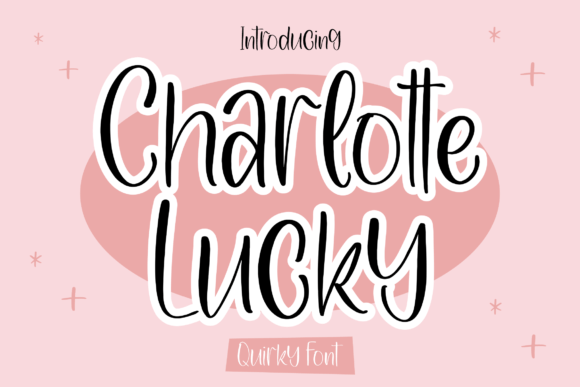
Introducing Charlotte Lucky Font: The Perfect Handwritten Script for Your Projects
Are you looking for a beautiful and elegant handwritten font to elevate your design projects? Look no further than Charlotte Lucky Font. This stunning script font is perfect for a wide range of applications, from logos and branding to homeware designs, product packaging, and more. In this article, we’ll take a closer look at Charlotte Lucky Font and explore its features, benefits, and uses.
What is Charlotte Lucky Font?
Charlotte Lucky Font is a beautiful handwritten script font that is designed to add a touch of elegance and sophistication to your design projects. Its flowing lines, delicate curves, and whimsical flair make it perfect for creating beautiful and eye-catching designs. Whether you’re working on a logo, branding project, or marketing materials, Charlotte Lucky Font is sure to impress.
Key Features of Charlotte Lucky Font
- Handwritten script font: Charlotte Lucky Font is a genuine handwritten script font that adds a personal touch to your designs.
- Elegant and sophisticated: The font’s flowing lines and delicate curves give it an air of elegance and sophistication.
- Whimsical flair: Charlotte Lucky Font has a playful, whimsical flair that makes it perfect for designs that require a touch of personality.
- Versatile: This font is suitable for a wide range of applications, from logos and branding to homeware designs, product packaging, and more.
Uses of Charlotte Lucky Font
Charlotte Lucky Font is a versatile font that can be used for a wide range of design projects. Here are some of the many uses of this beautiful font:
- Logos and branding: Create a stunning logo or branding project with Charlotte Lucky Font that reflects your brand’s personality and style.
- Homeware designs: Add a touch of elegance to your homeware designs, such as cushions, tote bags, and wall art.
- Product packaging: Make your product packaging stand out with Charlotte Lucky Font, perfect for labels, tags, and packaging materials.
- Mugs and ceramics: Create beautiful and unique designs for mugs, plates, and other ceramics.
- Quotes and posters: Use Charlotte Lucky Font to create inspiring quotes, posters, and prints that showcase your favorite sayings.
- Shopping bags and T-shirts: Design eye-catching shopping bags and T-shirts with Charlotte Lucky Font that will make your brand stand out.
- Book covers and name cards: Create stunning book covers, name cards, and bookmarks with this beautiful font.
- Invitation cards and greeting cards: Design elegant and sophisticated invitation cards, greeting cards, and stationery.
- Labels and photography: Use Charlotte Lucky Font to create beautiful labels, watermarks, and photo overlays.
- Special events: Make your special events, such as weddings, birthdays, and anniversaries, even more memorable with Charlotte Lucky Font.
Benefits of Using Charlotte Lucky Font
There are many benefits to using Charlotte Lucky Font for your design projects. Here are some of the advantages of choosing this beautiful font:
- Unique and creative: Charlotte Lucky Font is a one-of-a-kind font that will add a touch of personality to your designs.
- Elegant and sophisticated: This font’s elegant and sophisticated style makes it perfect for designs that require a level of refinement.
- Easy to read: Despite its elegant style, Charlotte Lucky Font is easy to read, making it perfect for body text and captions.
- Versatile: This font is suitable for a wide range of applications, from digital designs to print materials.
- High-quality: Charlotte Lucky Font is a high-quality font that is designed to deliver exceptional results.
How to Use Charlotte Lucky Font
Using Charlotte Lucky Font is easy. Here are some tips to get you started:
Charlotte Lucky Font is a beautiful handwritten script font that is perfect for a wide range of design projects. Its elegant and sophisticated style, combined with its whimsical flair, make it a versatile font that can be used for logos, branding, homeware designs, product packaging, and more. With its ease of use and high-quality design, Charlotte Lucky Font is a great choice for designers and non-designers alike.